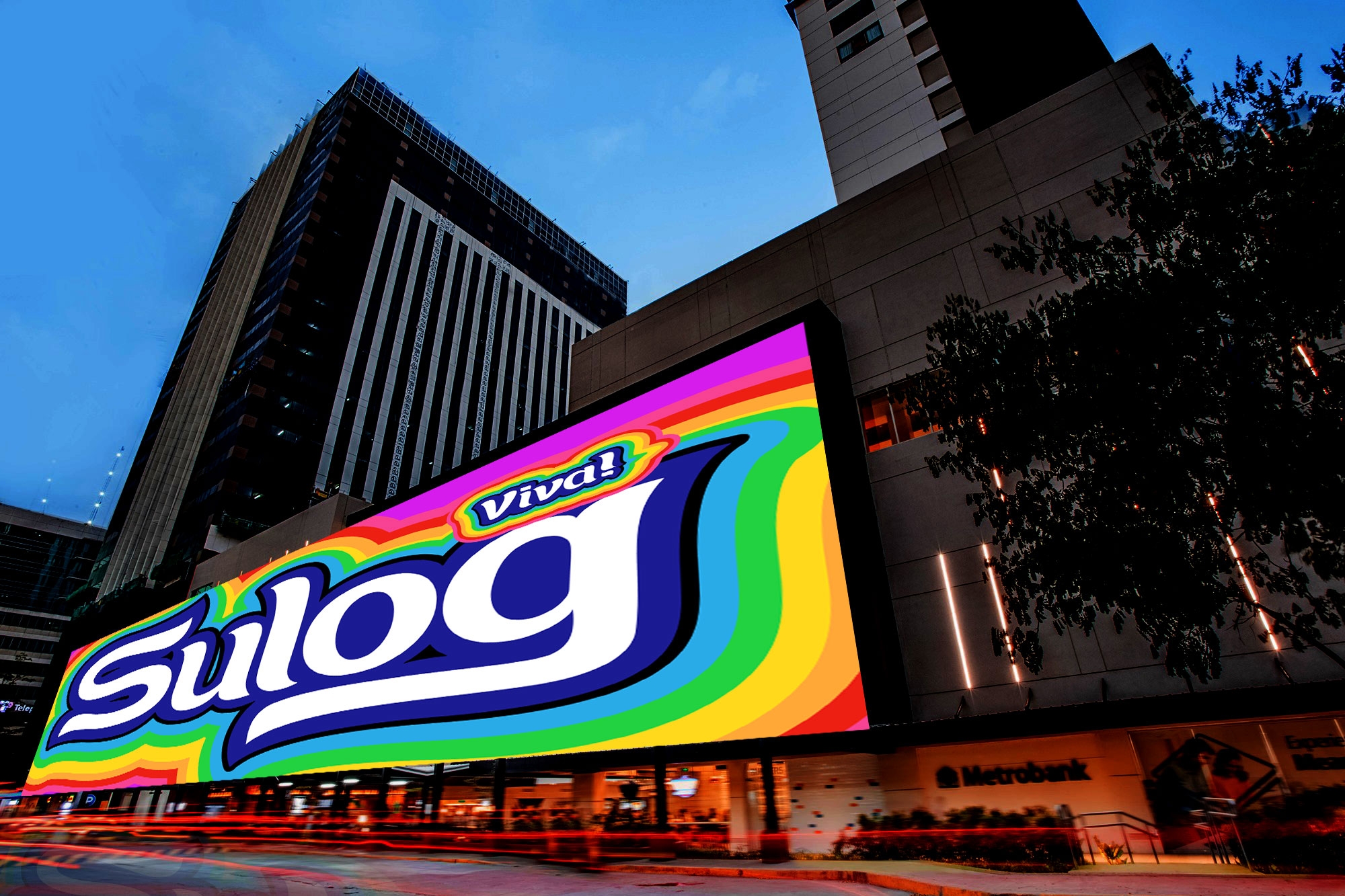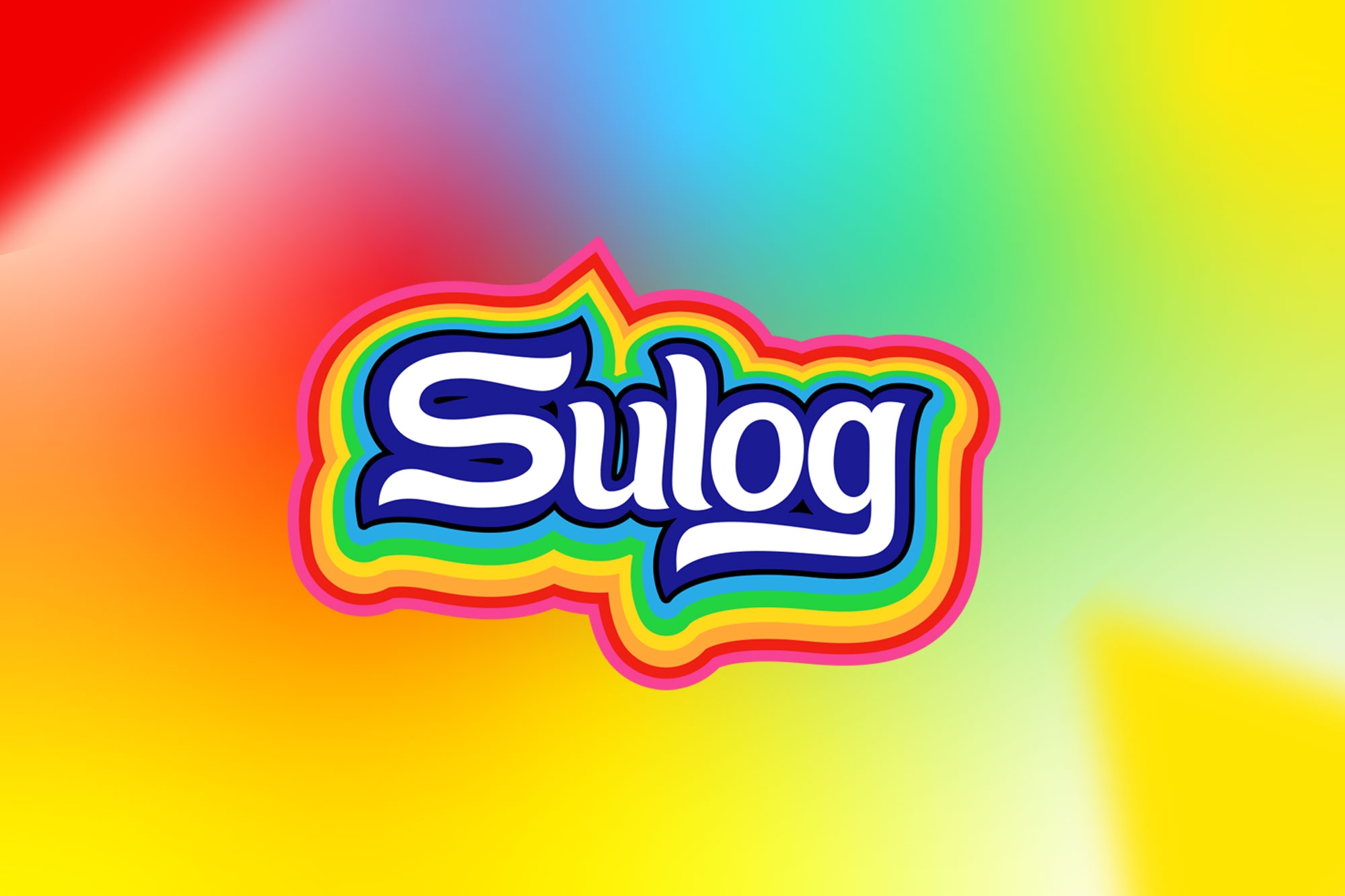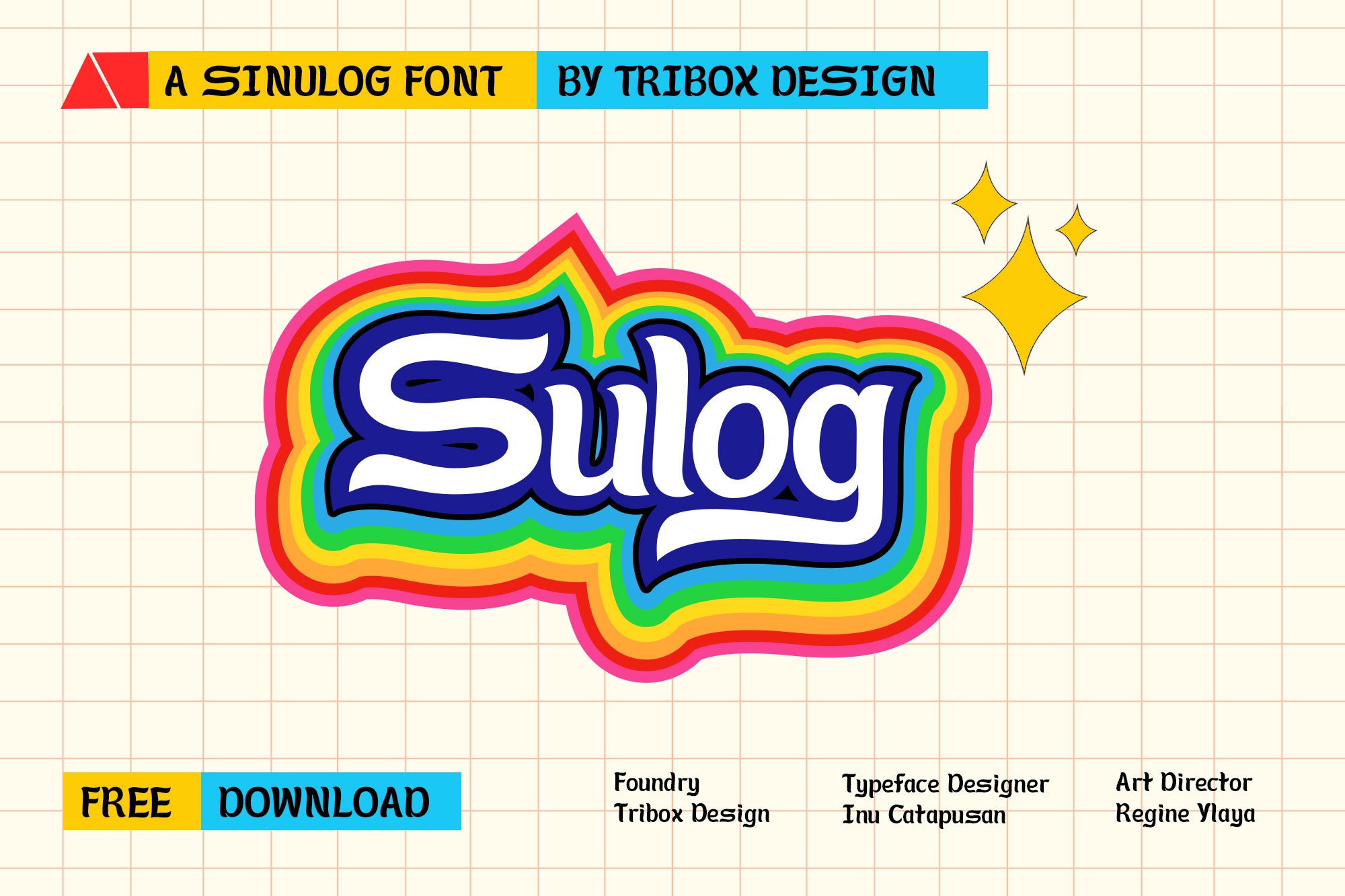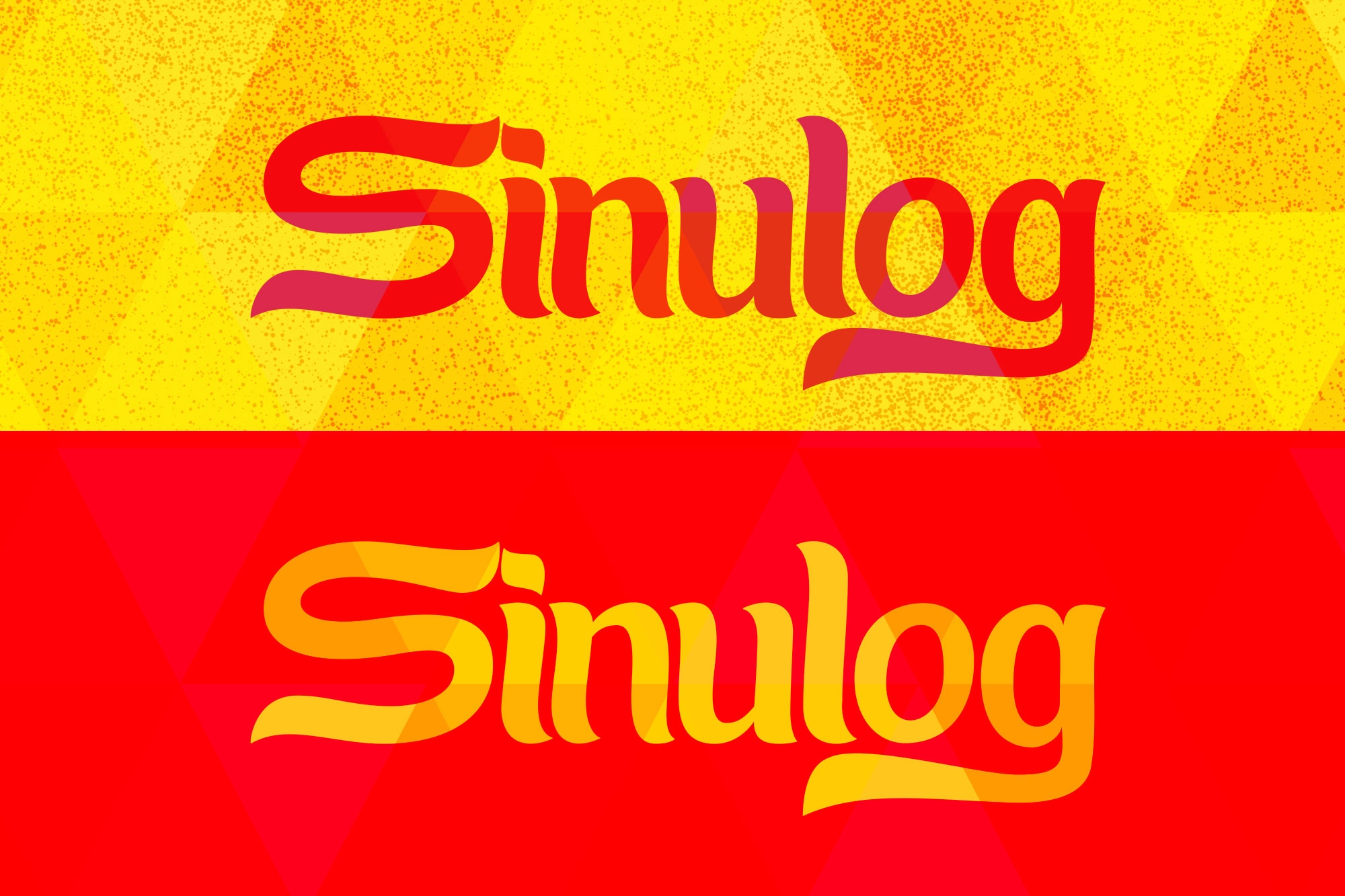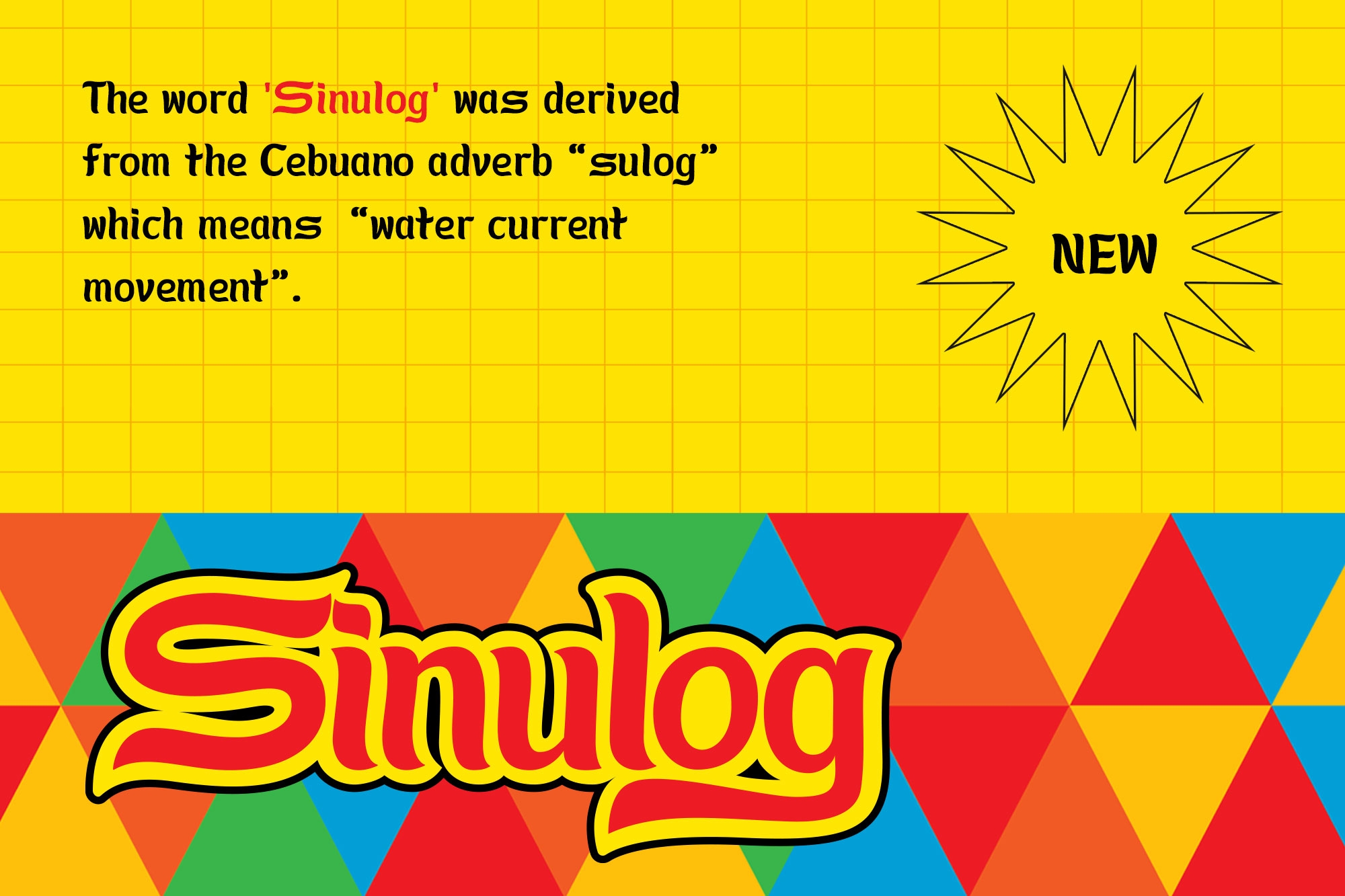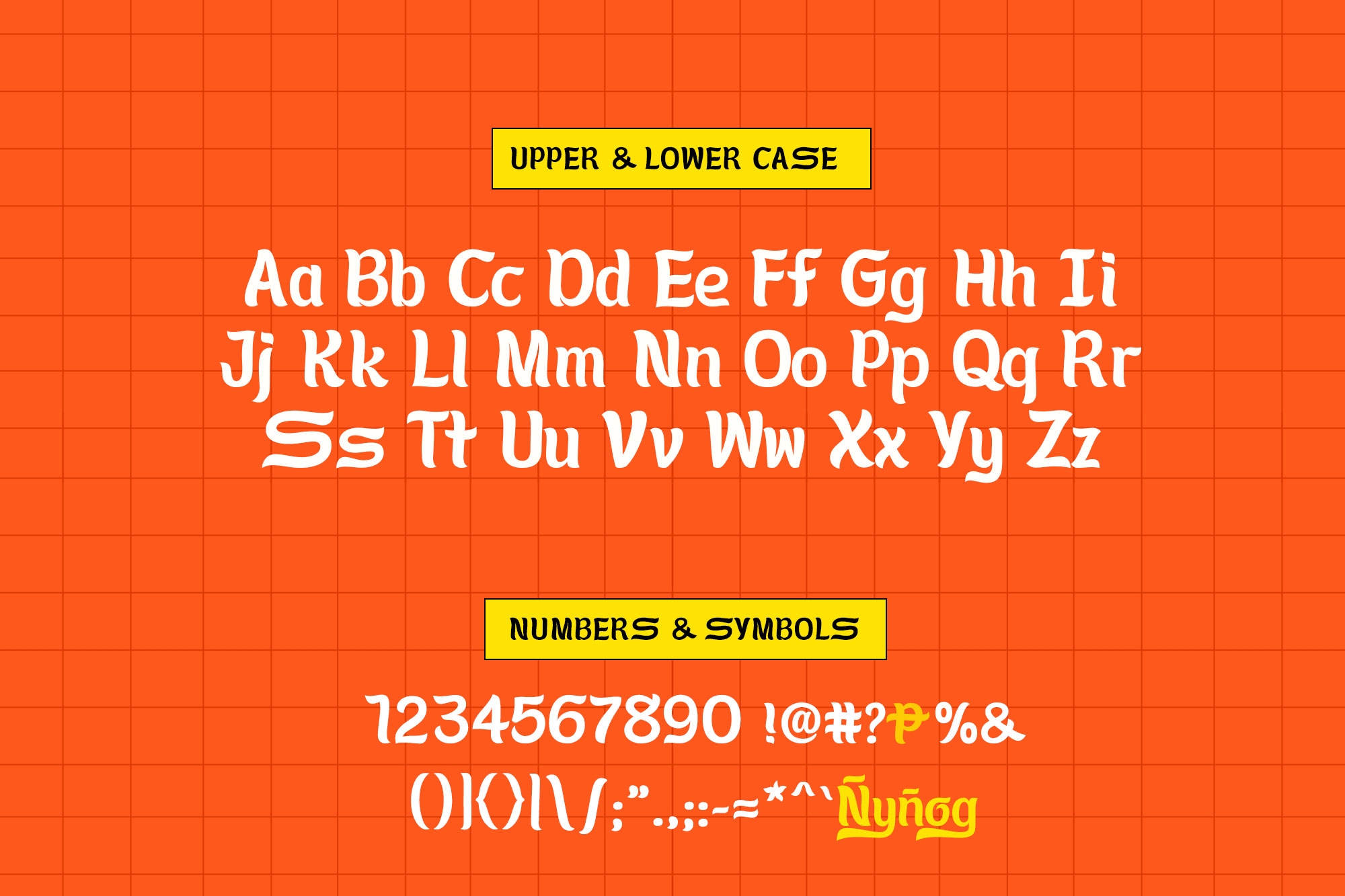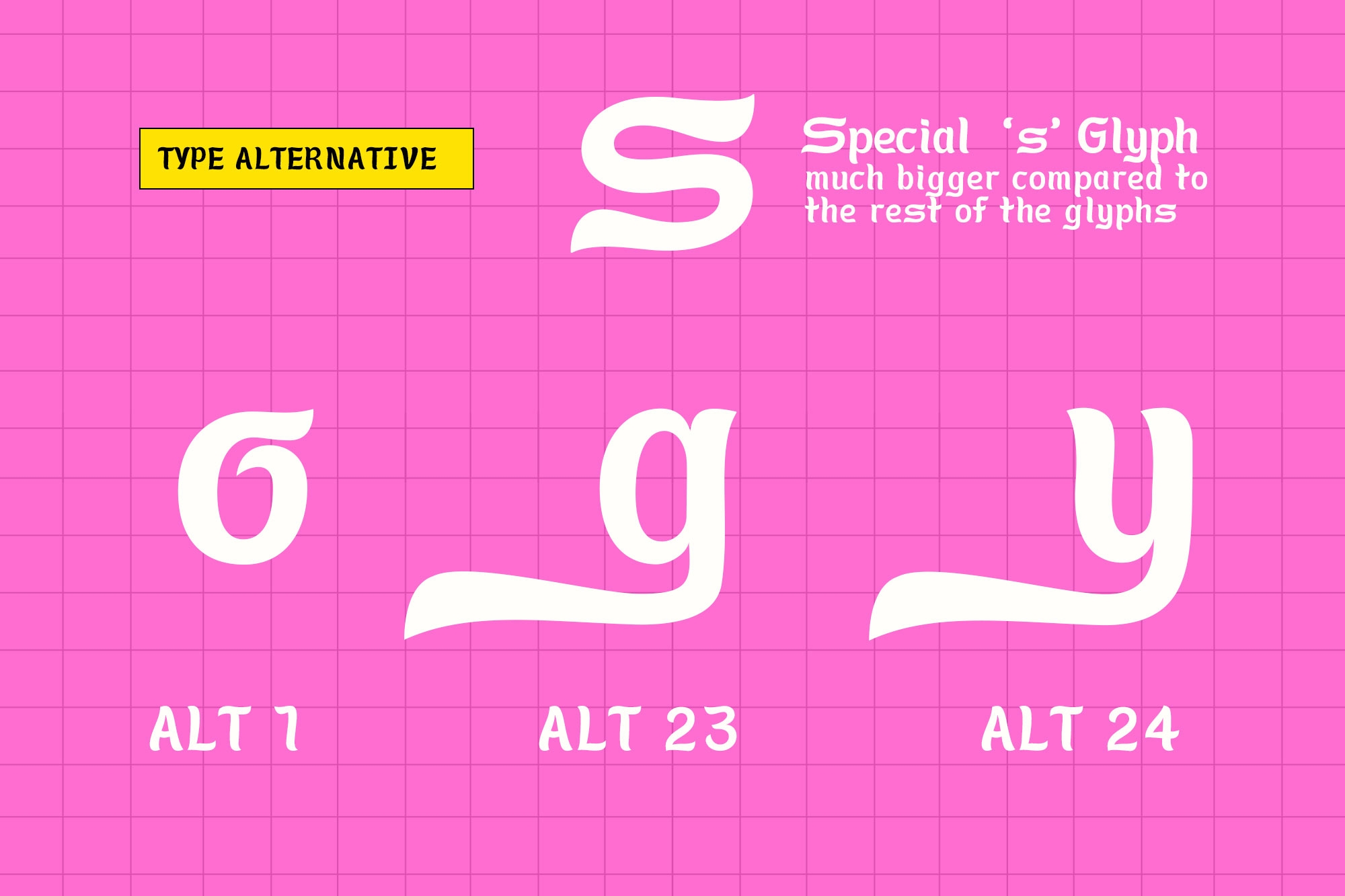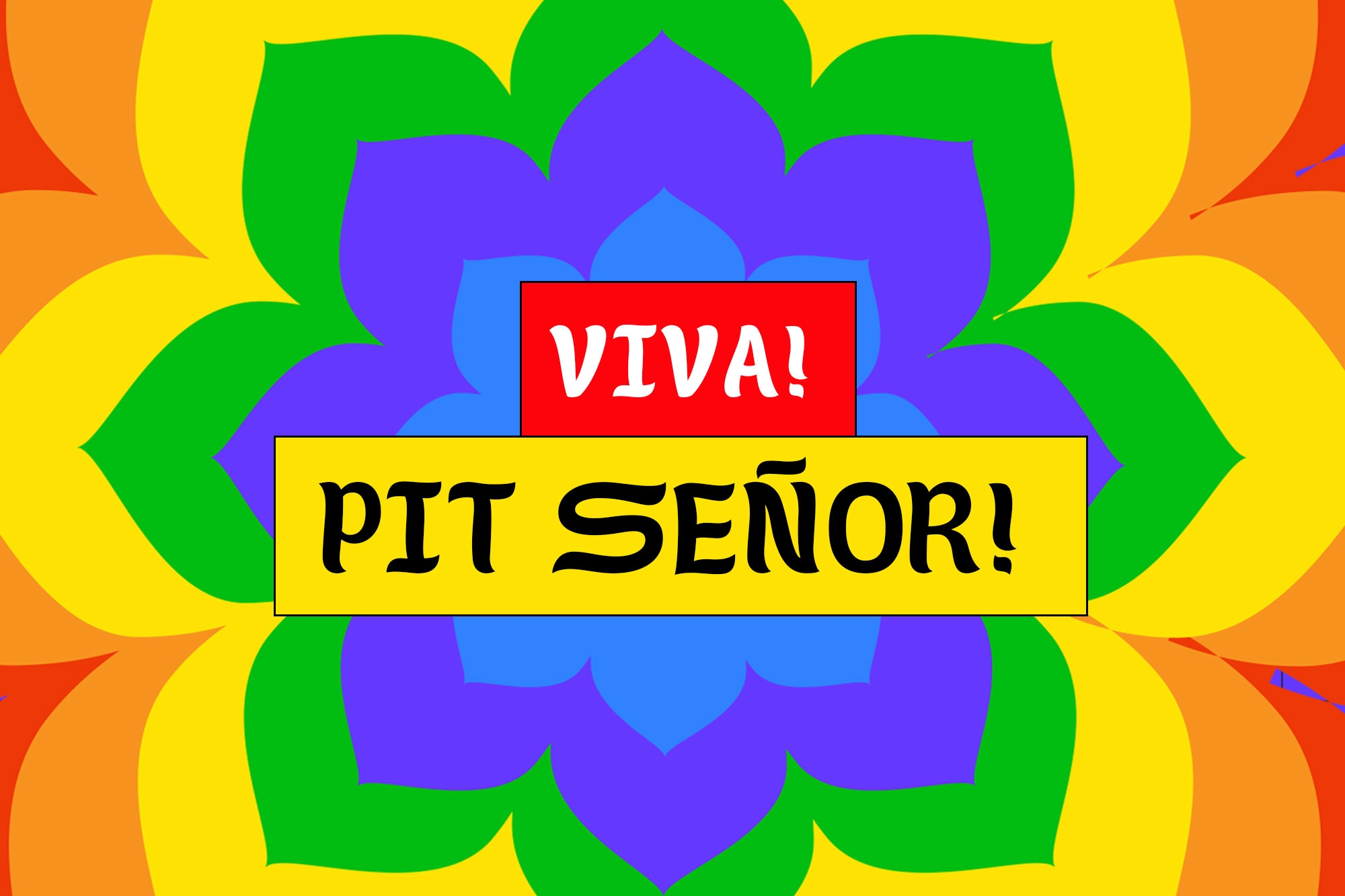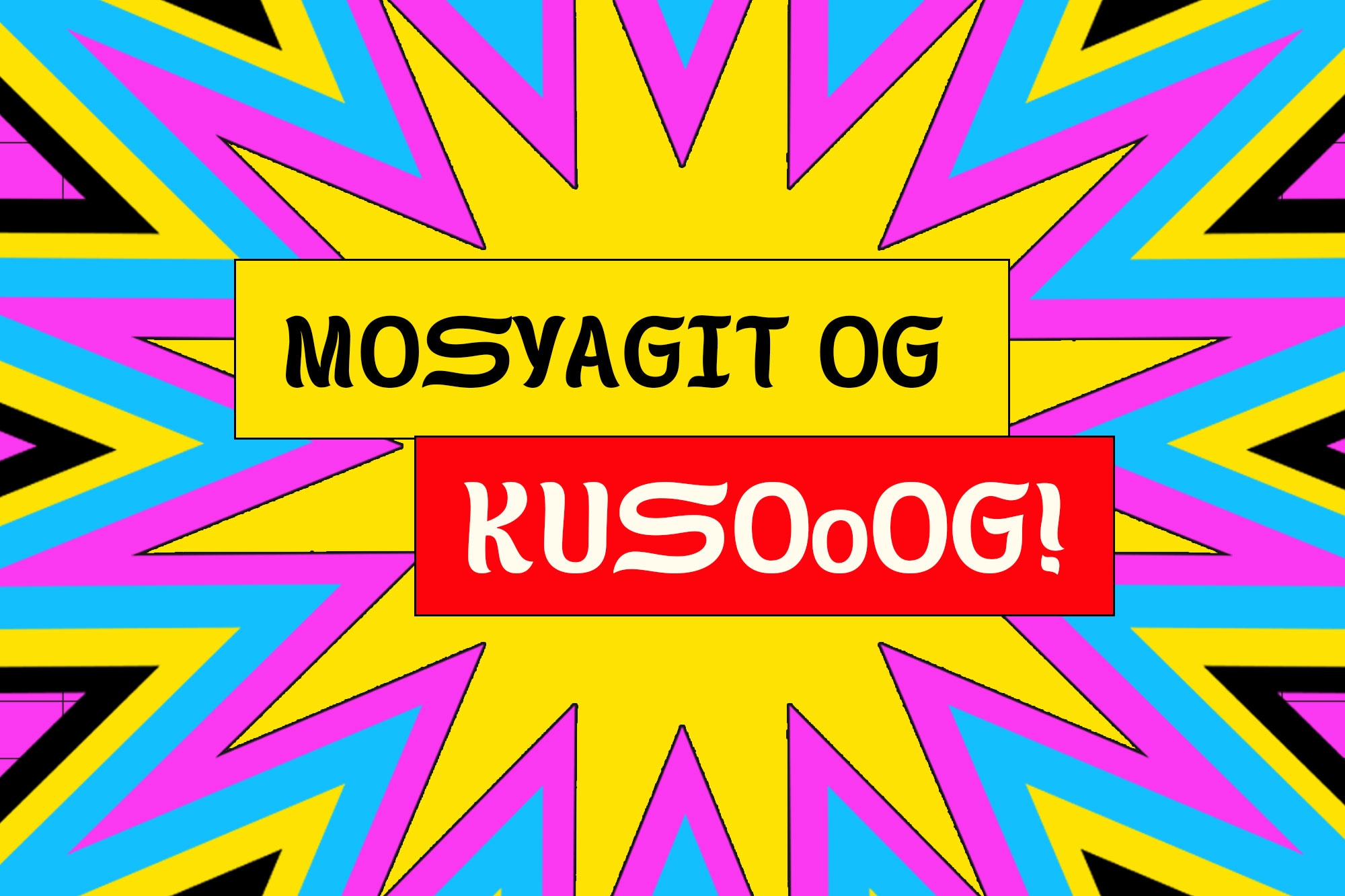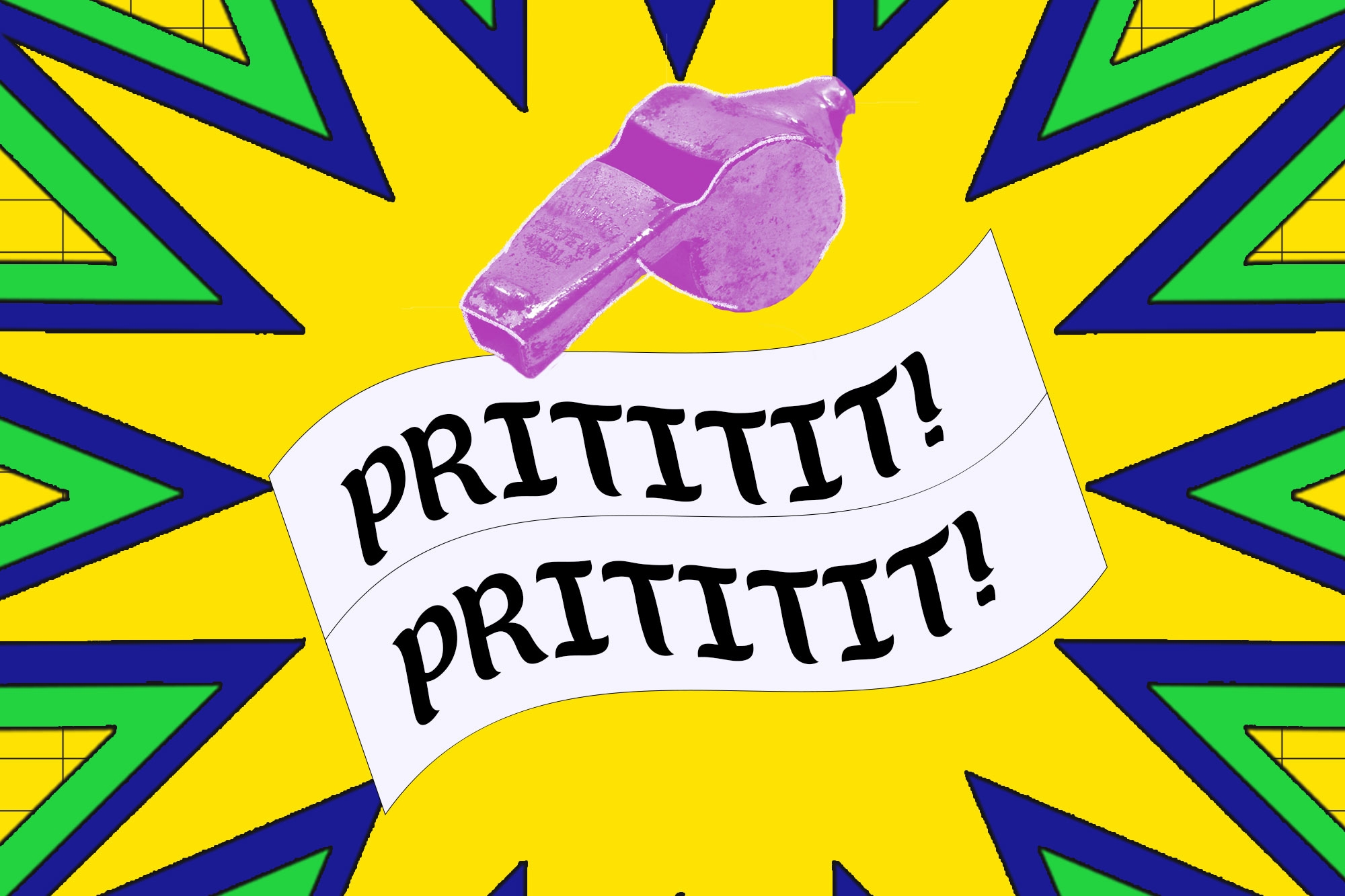
Tribox Design creates a font called TD Sulog for Sinulog Festival
Let’s make Sinulog more exciting and fun!
In celebration of Fiesta de Señor Santo Niño, our team created a font called “Sulog” as a gift for our beloved Señor Santo Niño. “Sinulog” is derived from the Cebuano term “sulog”, meaning “current” or “flow of water”, which can be used to describe forward-backward movement of the Sinulog dance. We retained the original structure of the wordmark, the curves that represent resilience, or “kalig-on”. The font has glyphs in upper case, lower case, numbers, and symbols. We also added glyphs for the letters ‘g’ and ‘y’ with tails, upper and lowercase ‘ñ’, and the letter ‘o’. Everything you’ve seen in the images is a mockup, and it only works for virtual viewing.